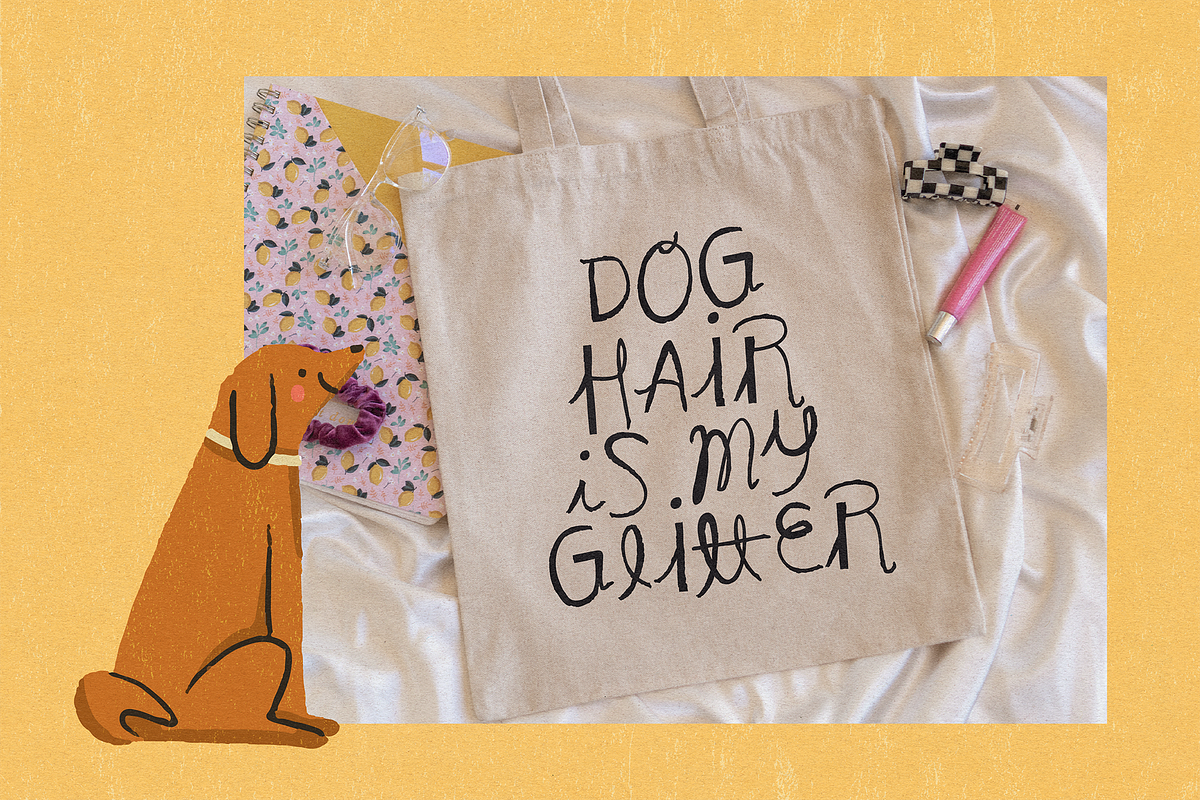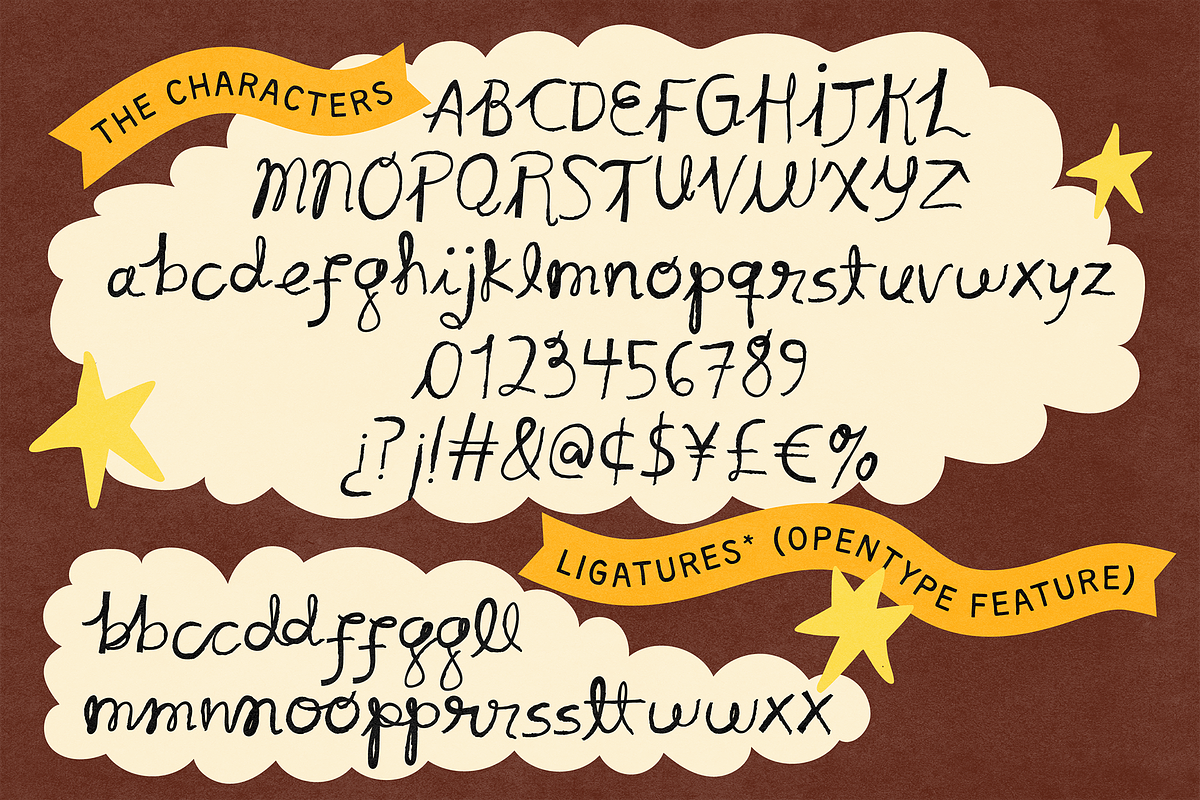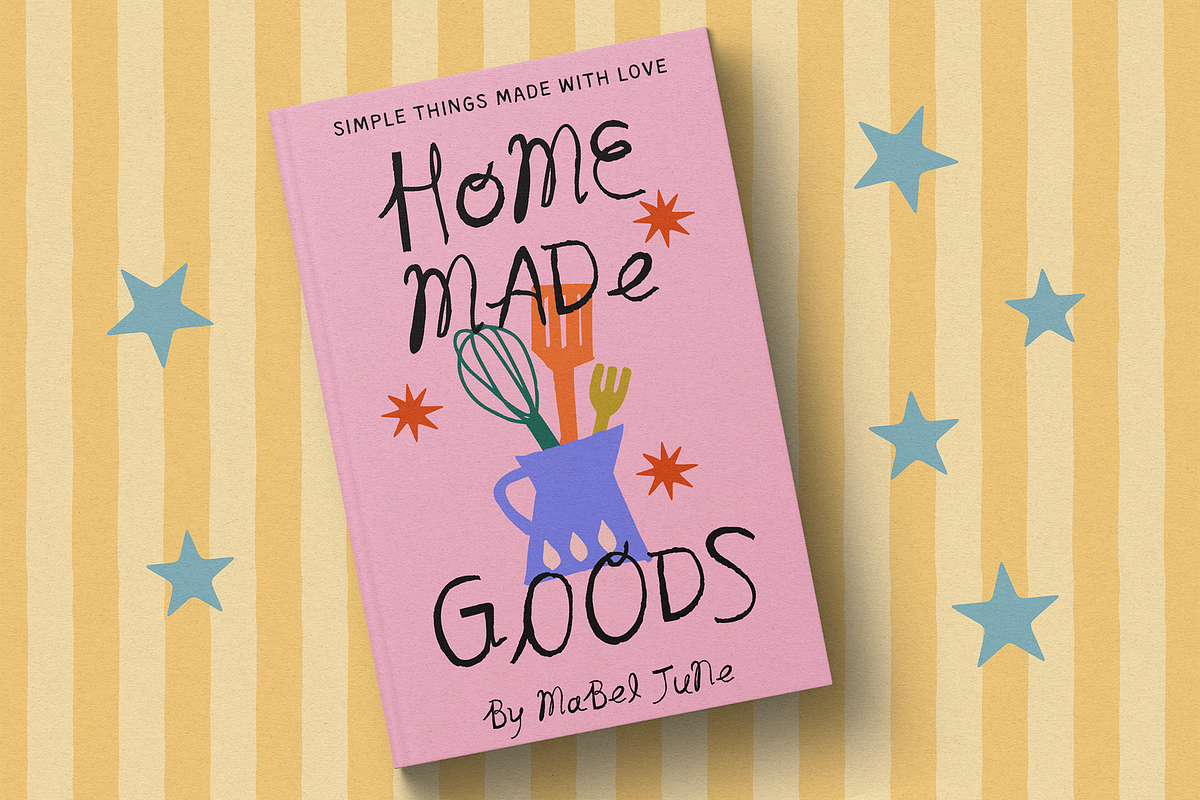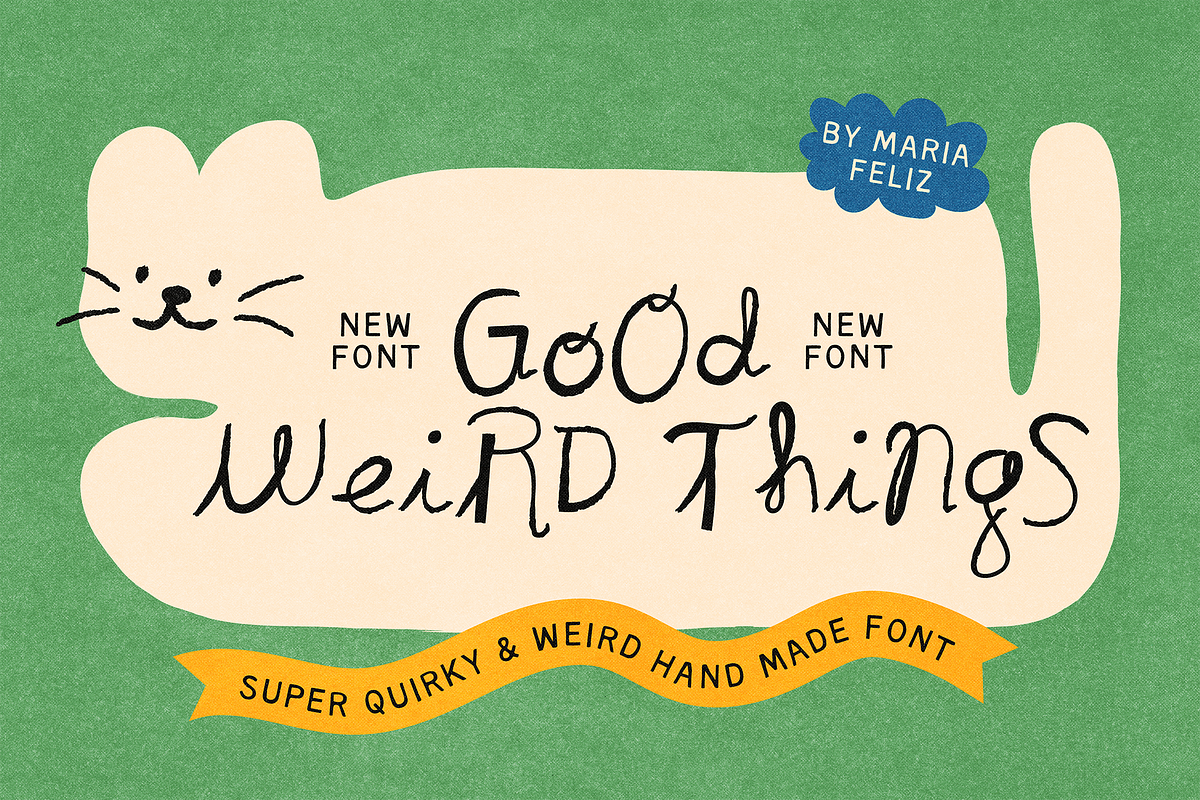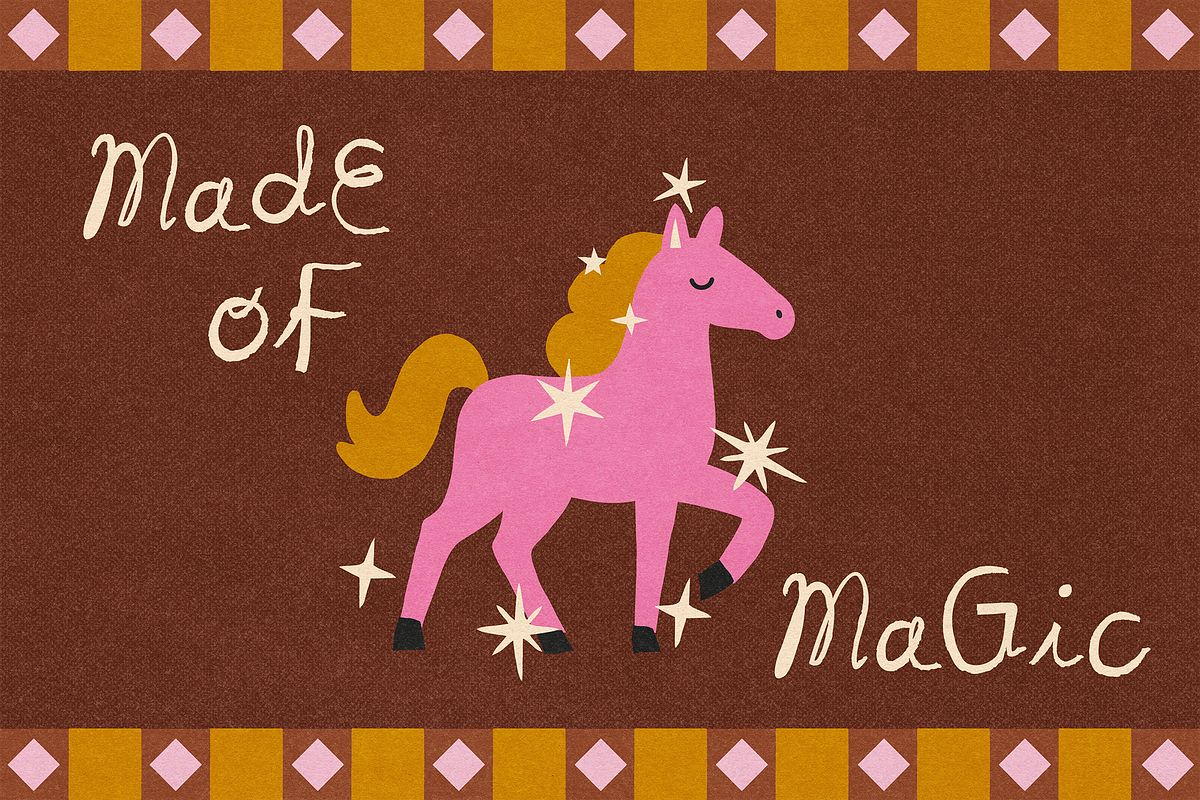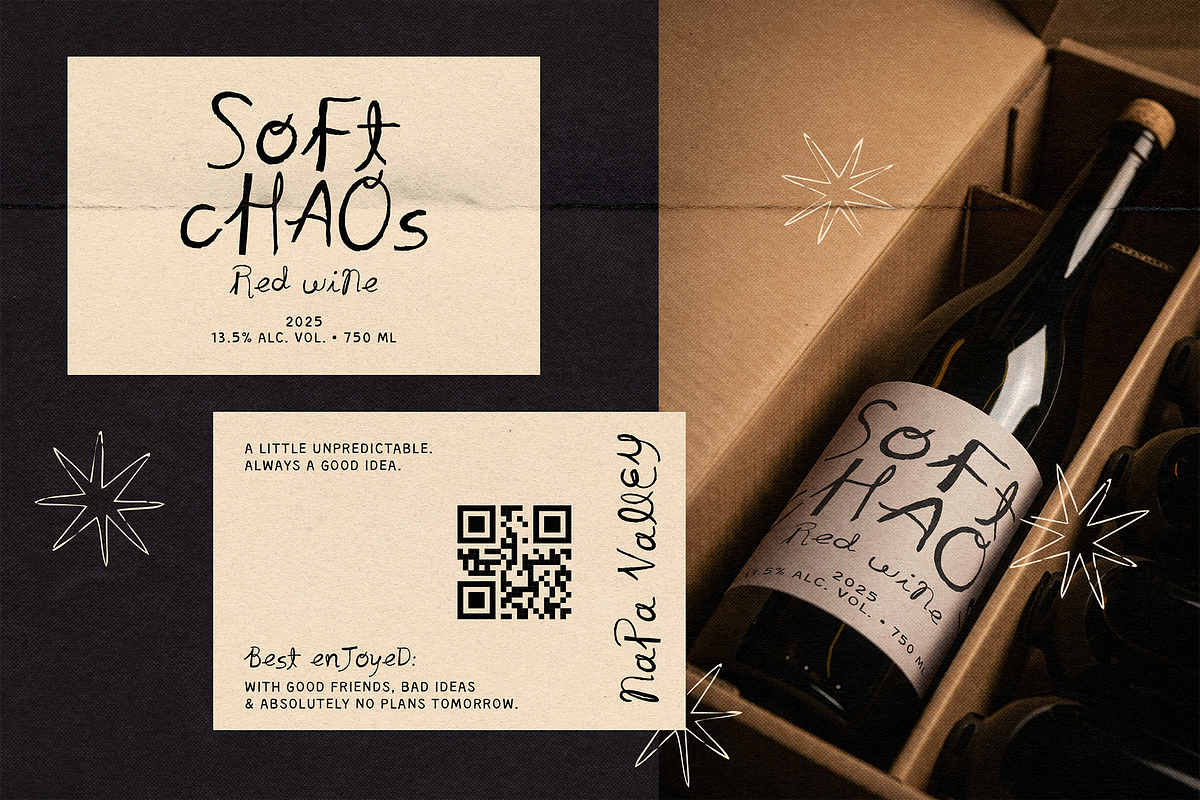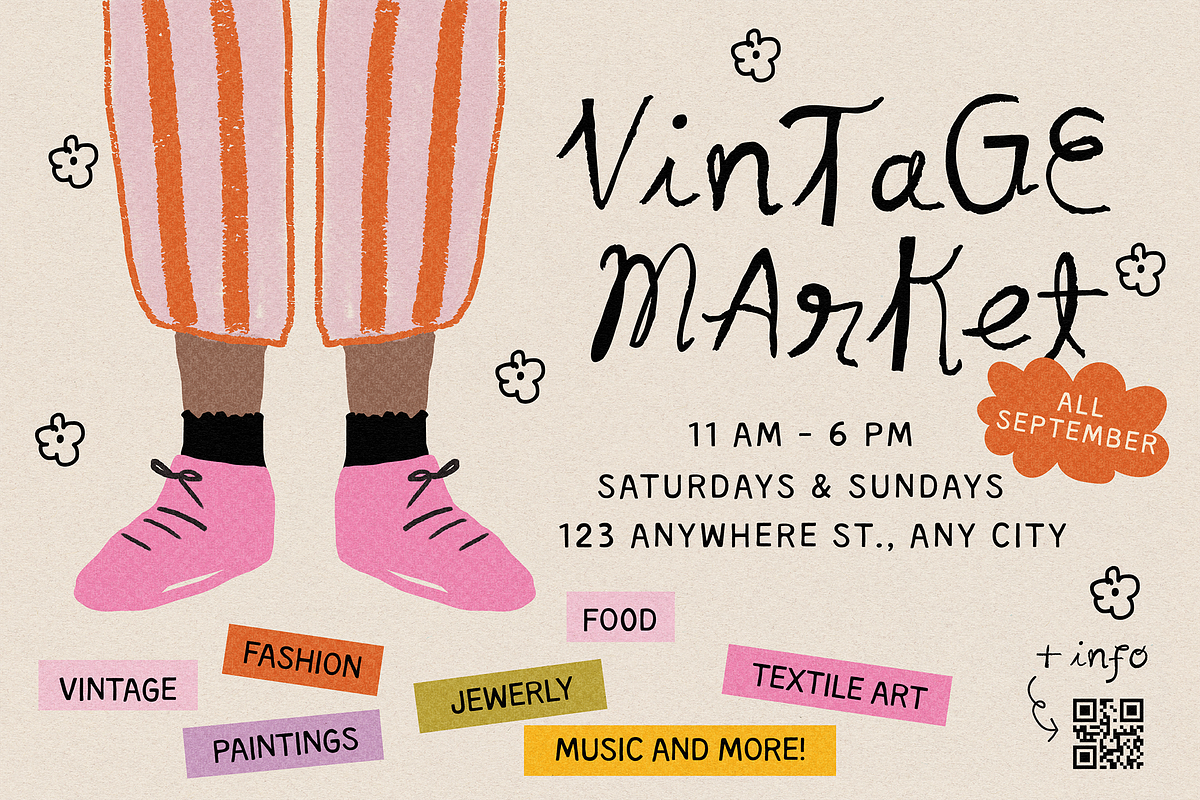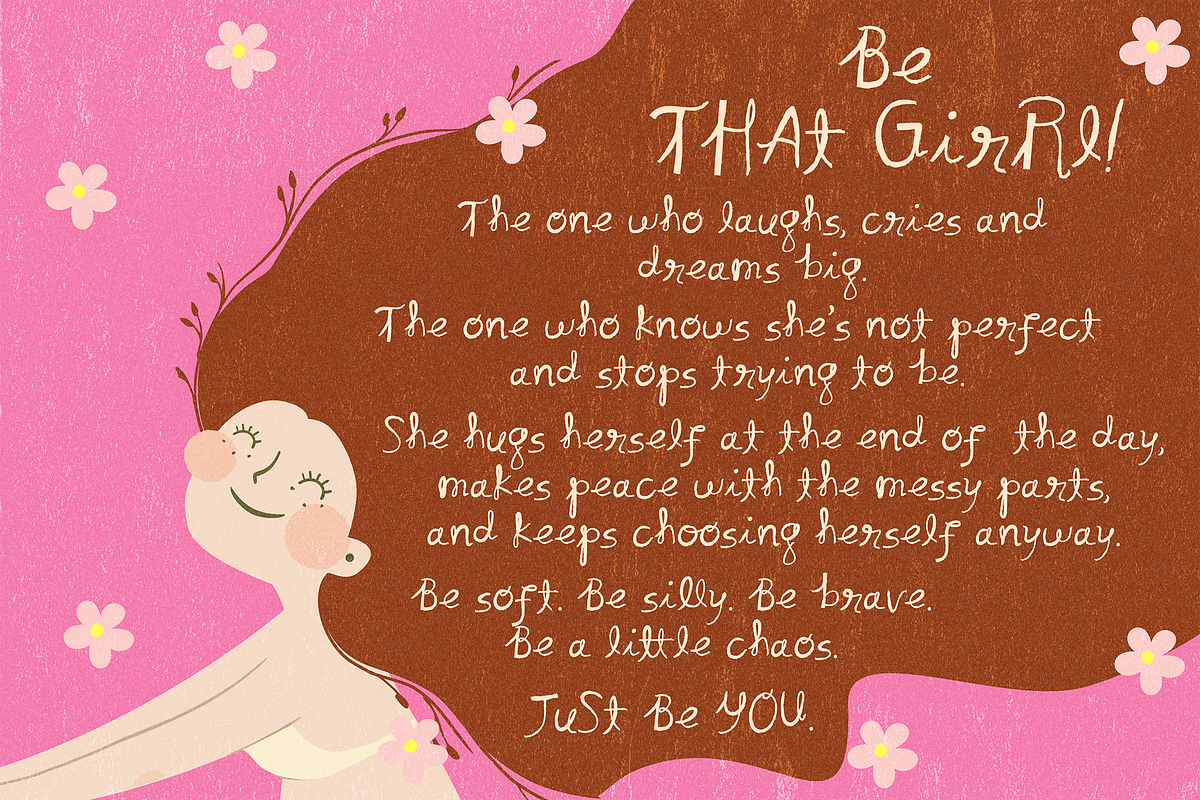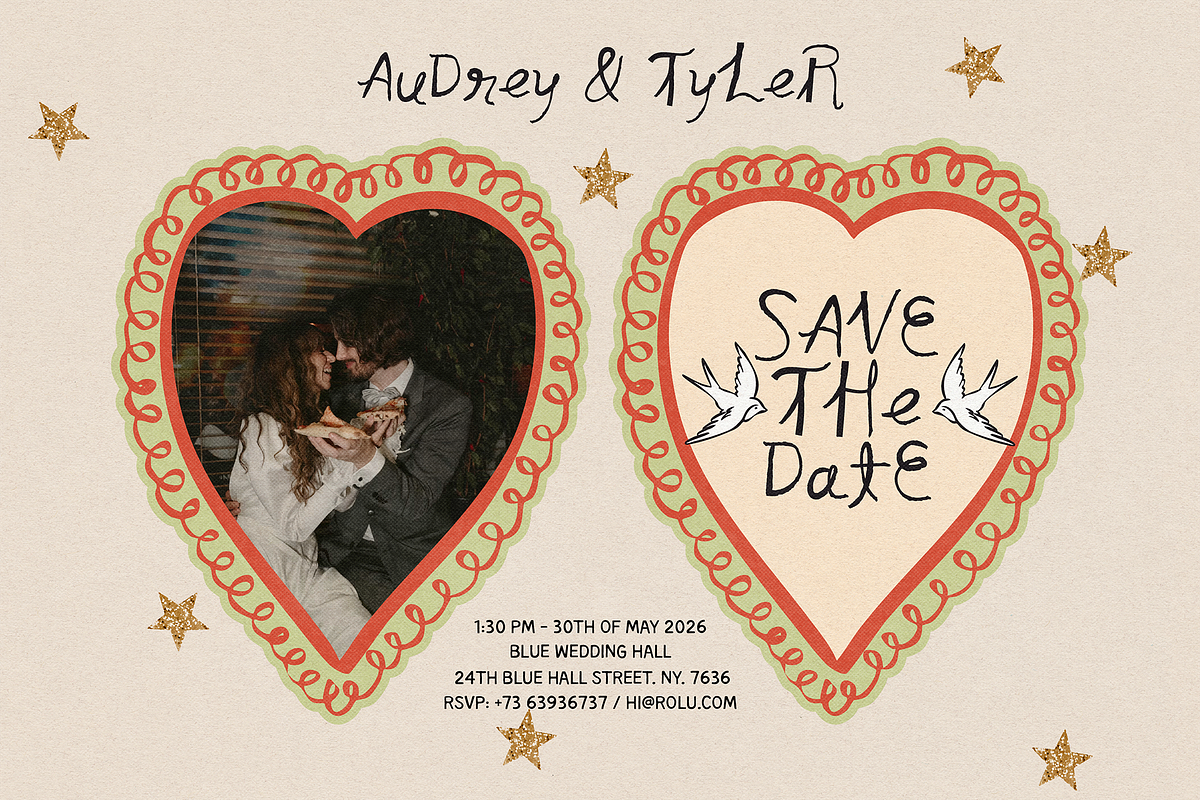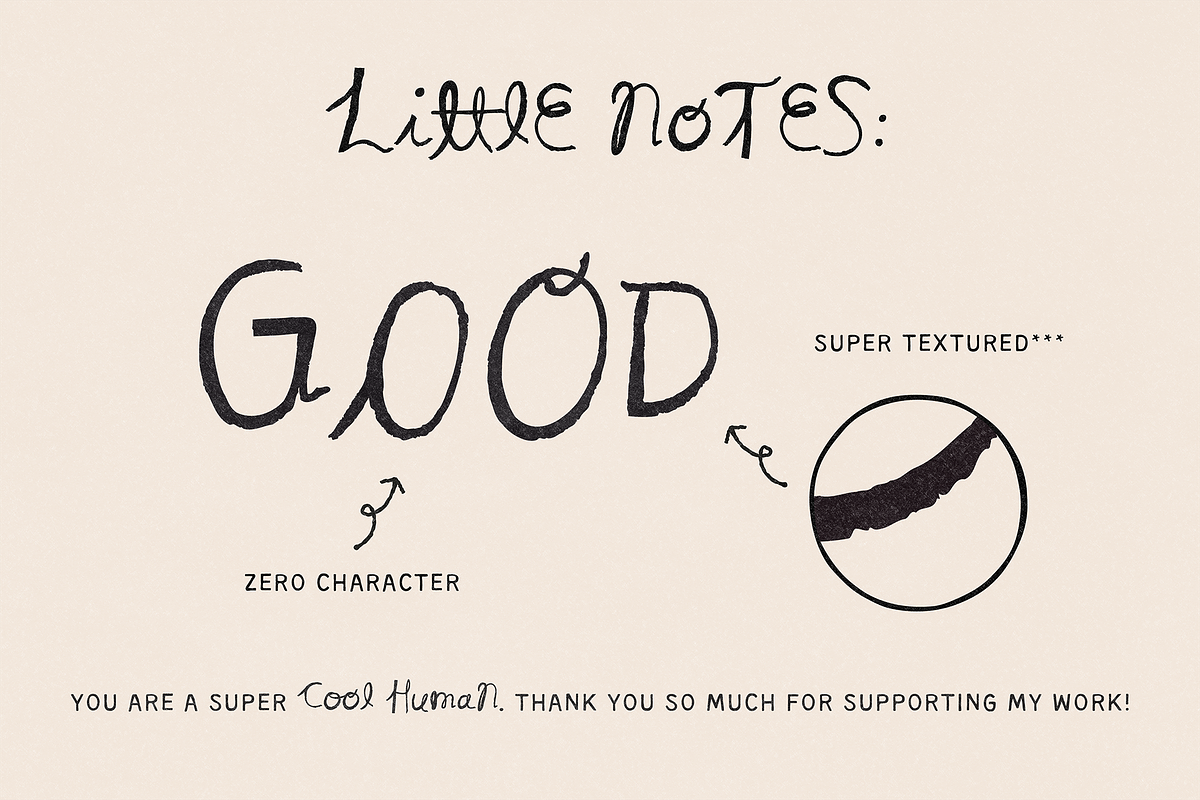
GOOD WEIRD THING | IRREGULAR & WEIRD
Good Weird Things is a super weird, wonderfully irregular display font making it perfect for super creative projects, packaging, apparel, branding, social media graphics, and anything that needs a little more personality.
This hand drawn display font was created to look imperfect on purpose. Letters wobble, shapes change, textures show through, and nothing feels too polished.
✷ Mix uppercase and lowercase letters! Since the characters have different shapes and proportions, combining them can create even more unexpected, quirky, and playful results.
This font was made especially for titles, short phrases, and eye catching designs. Keep it short and let its personality shine
This font is full of texture, so it may not be the best choice for cutting machines. It was made to shine in digital and printed designs!
The ligatures are OpenType features. If your software supports them, they can add an extra touch of personality to your designs! And if not, no worries! Mixing uppercase and lowercase letters can create a super cool look too.